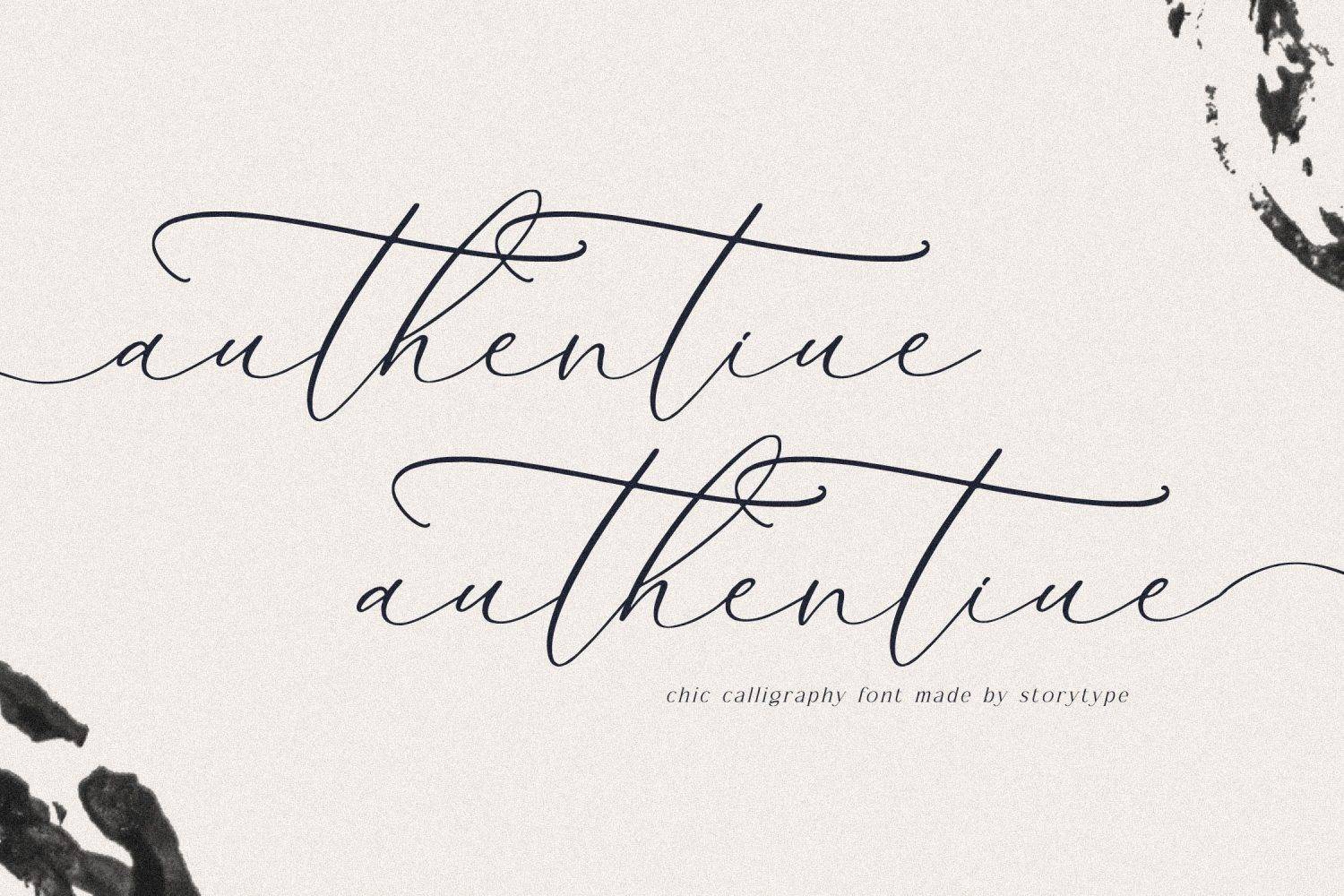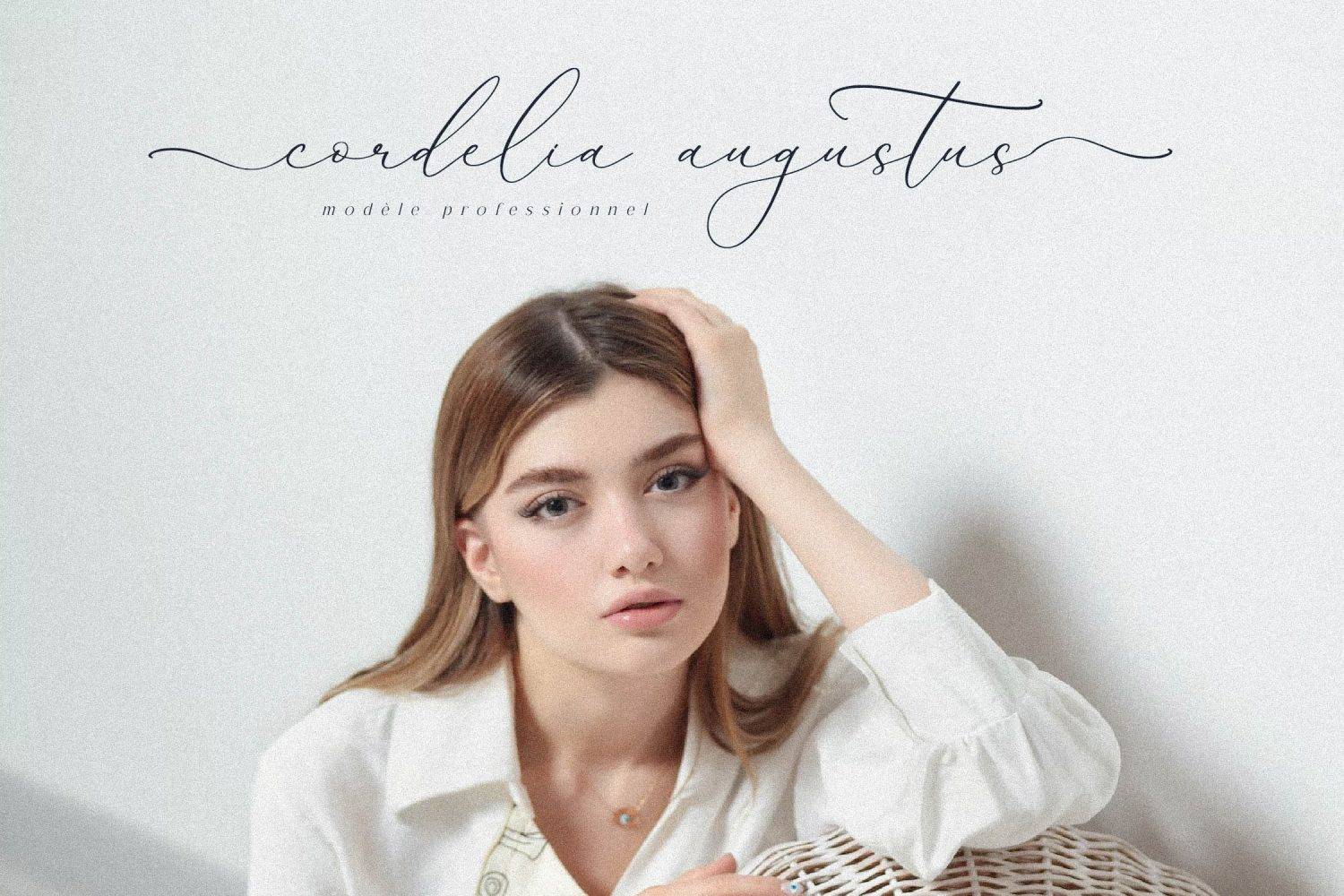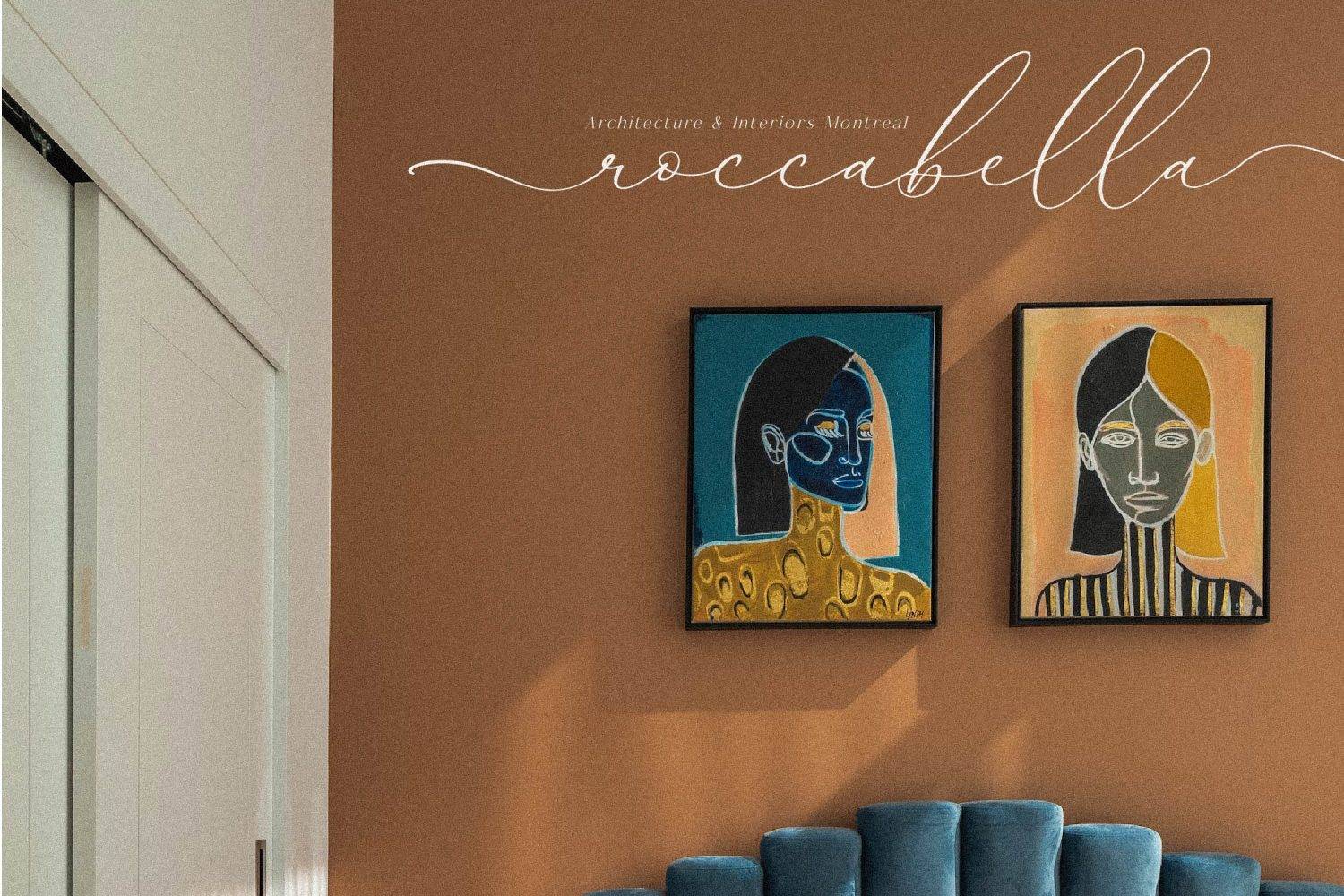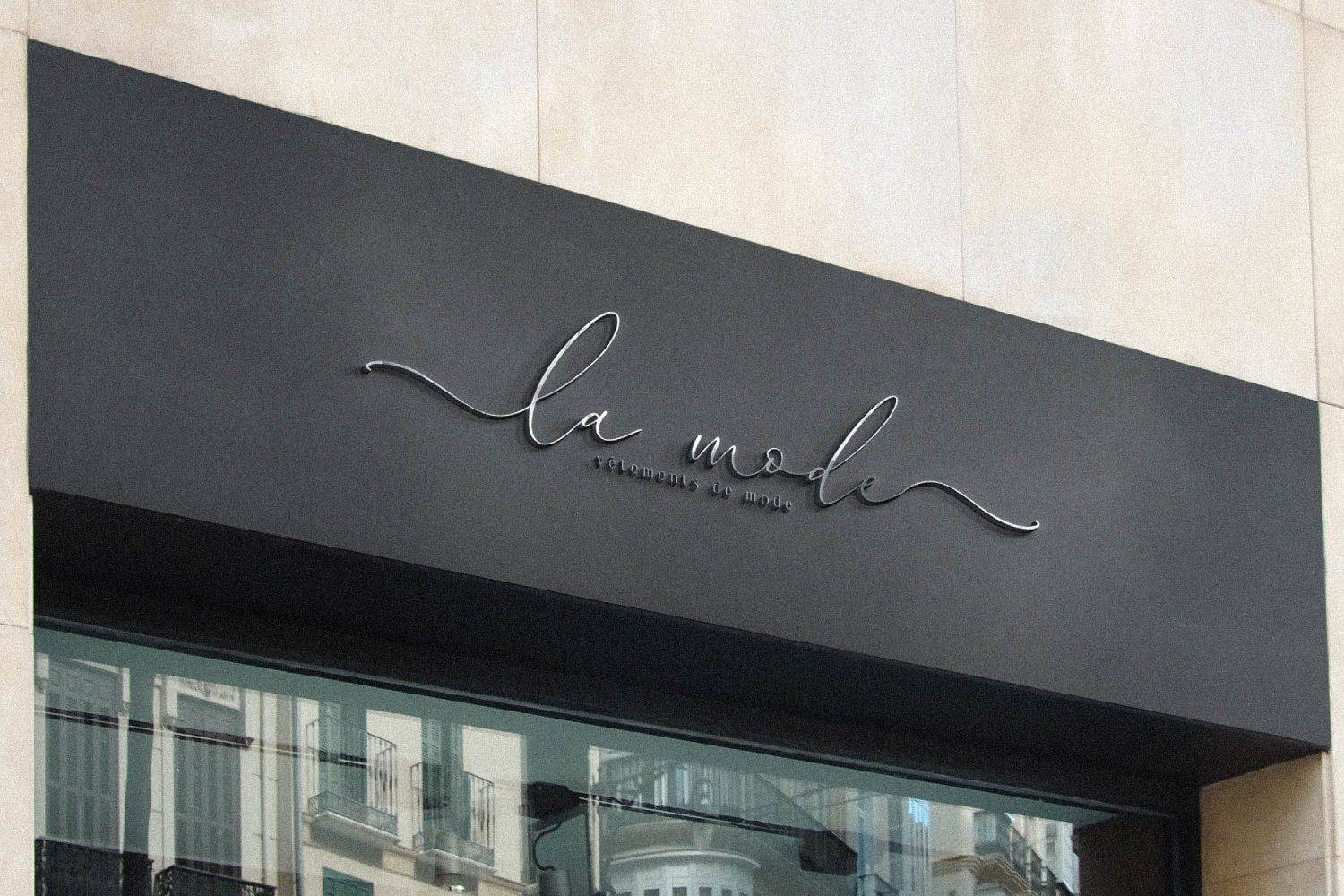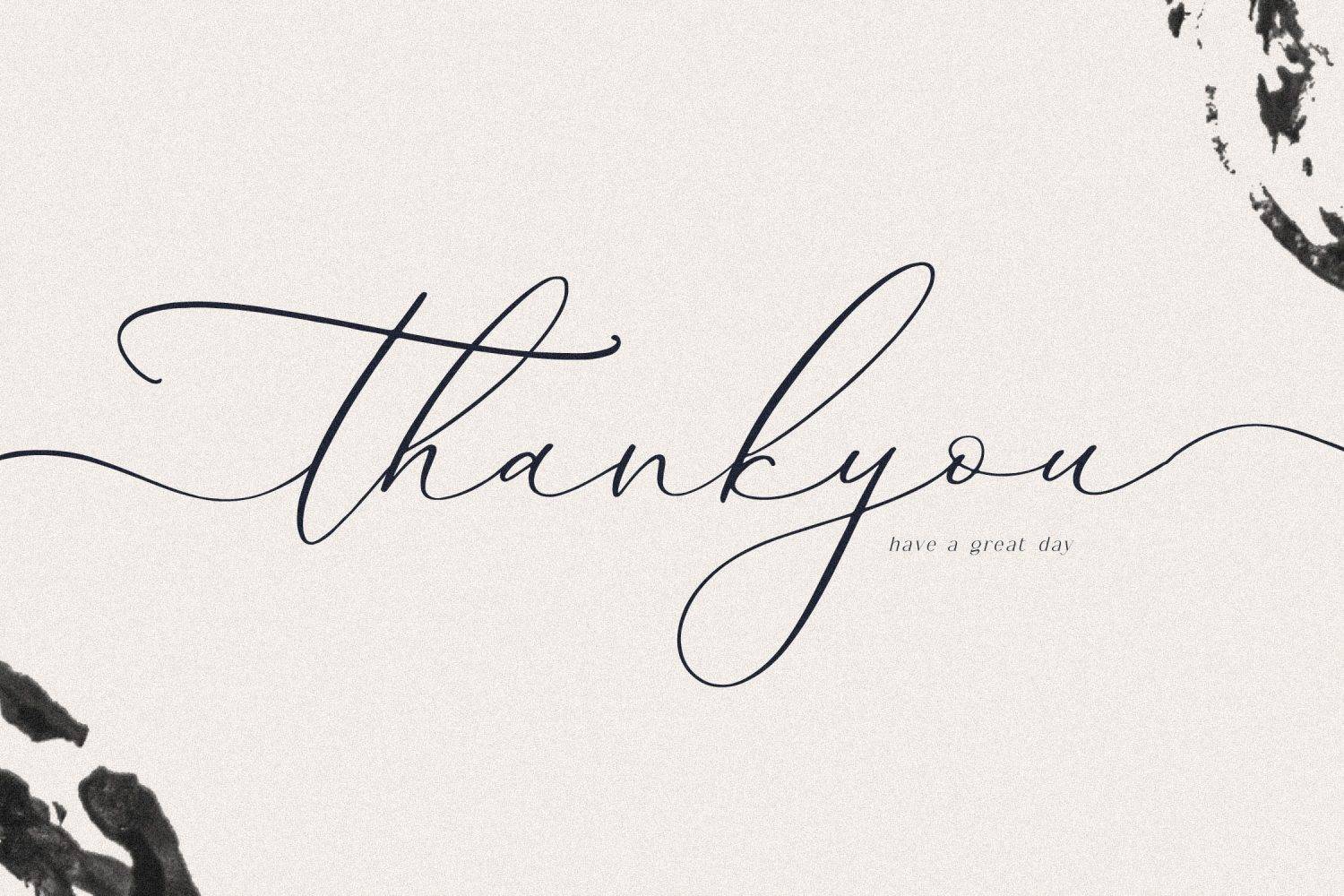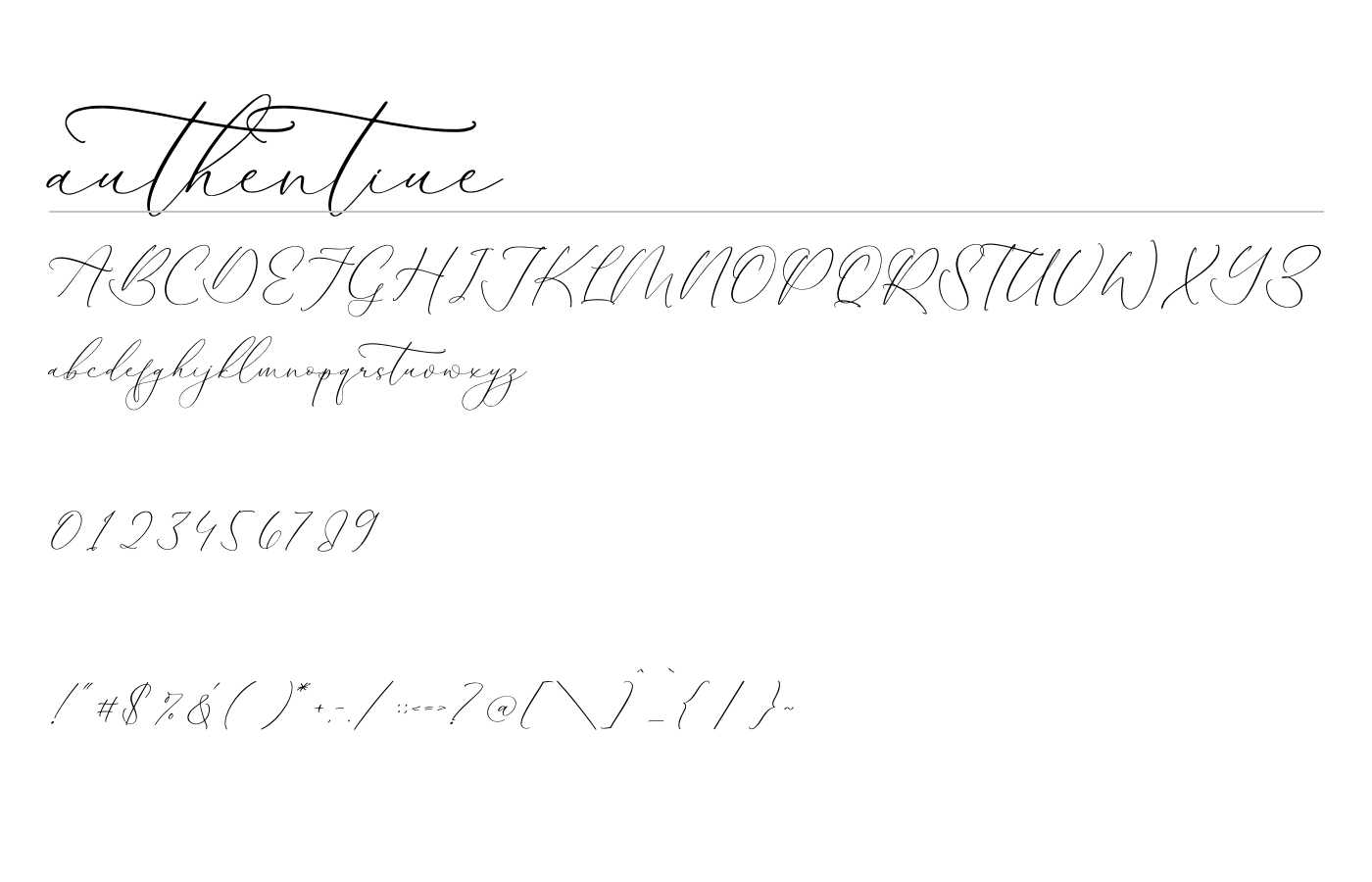
Authentiue is a delicate, elegant script font featuring fine, flowing strokes that evoke a sense of sophistication and grace. Its slender letterforms and subtle flourishes make it ideal for luxury branding, wedding invitations, and upscale editorial projects where a refined, personal touch is desired. This font shines best in large sizes for headlines or logos, adding a stylish and expressive flair without overwhelming the design.
Authentiue Font
About Authentiue Font